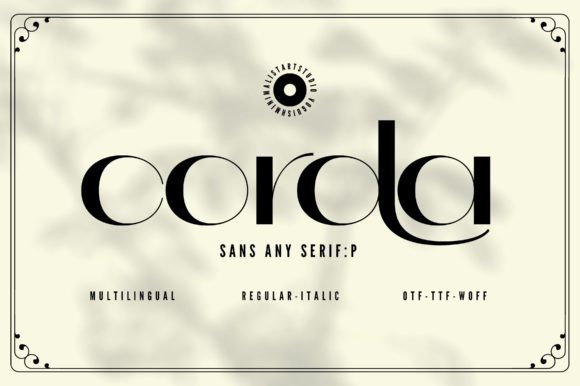
In a realm where visual aesthetics reign supreme and digital displays captivate our attention, allow us to introduce Corda, a sans serif font that is not just a typeface, but an artistic masterpiece. Crafted by the visionary design team at Minimalistartstudio, Corda is a symphony of simplicity and elegance, a font that weaves a spell of sophistication and innovation.
Behold the meticulously designed glyphs, each one a testament to the artistry of its creators. With over 602 characters at your disposal, Corda unveils a world of creative possibilities, allowing you to craft designs that speak volumes without uttering a single word. Its multilingual support, spanning across European and Latin-based scripts, breaks down linguistic barriers, making it a font that speaks to the world.
Experience the allure of Corda's minimalist design, a testament to its versatility and boundless applications. Whether you're designing logos that leave an indelible mark, crafting websites that captivate audiences, or creating print materials that exude professionalism, Corda is your steadfast companion. Its clean lines and striking curves ignite a spark of modernity, while its effortless legibility ensures your message is conveyed with clarity and impact.
With Corda as your chosen font, you ascend to the ranks of design royalty. Its effortless elegance elevates your creations, imbuing them with a timeless appeal that transcends trends. Embrace the power of simplicity, the beauty of minimalism, and the allure of modernity. As you weave your design magic using Corda, prepare to witness the transformation of your projects into masterpieces that will leave a lasting impression.